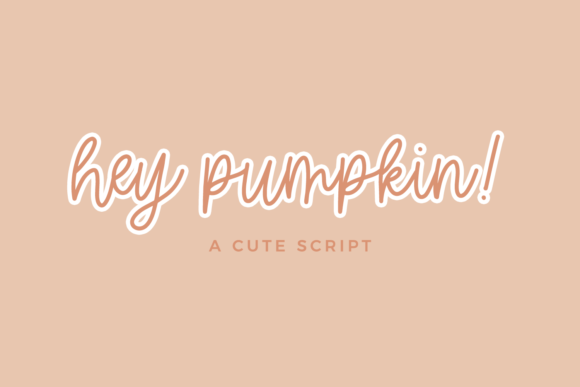
Journey into the whimsical world of penmanship with Hey Pumpkin Font, a captivating script font that dances across your designs with an enchanting charm. This handwritten beauty is a creation of BeckMcCormick, a skilled artist who poured their heart into crafting each letterform. Born from the desire to capture the essence of playful penmanship, Hey Pumpkin Font exudes a sense of warmth and friendliness that is sure to leave a lasting impression.
At its core, Hey Pumpkin Font possesses a distinct style that sets it apart from the ordinary. Its natural and unique flair shines through in every curve and stroke, bringing a touch of individuality to your creative projects. This versatile font seamlessly adapts to a variety of design styles, from whimsical invitations and heartfelt handwritten notes to eye-catching social media posts and elegant logos. The only limit is your imagination!
Unleash your creativity and explore the endless possibilities that Hey Pumpkin Font presents. Whether you're crafting a personal journal teeming with your innermost thoughts or designing a captivating storefront sign that draws customers in, this font will elevate your words with its enchanting presence. Let Hey Pumpkin Font be your muse, guiding you to create designs that captivate hearts and leave a lasting impression.